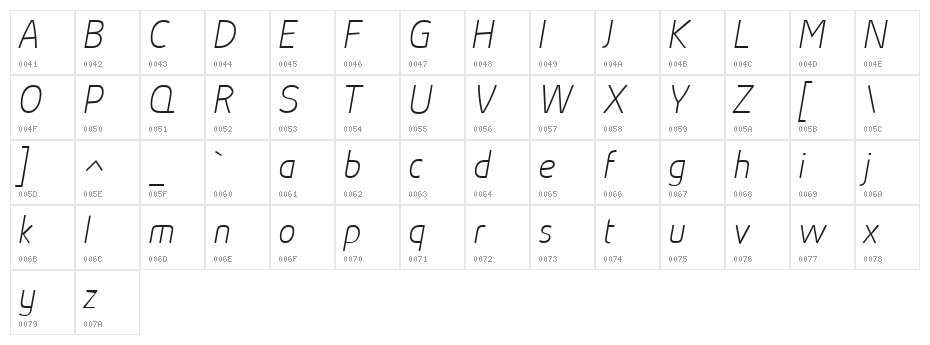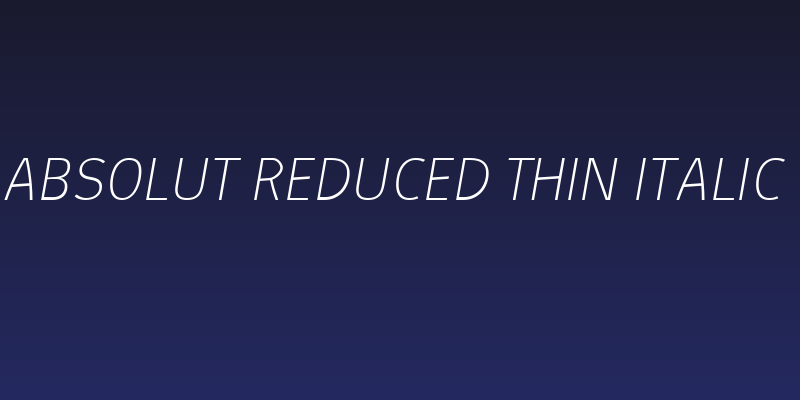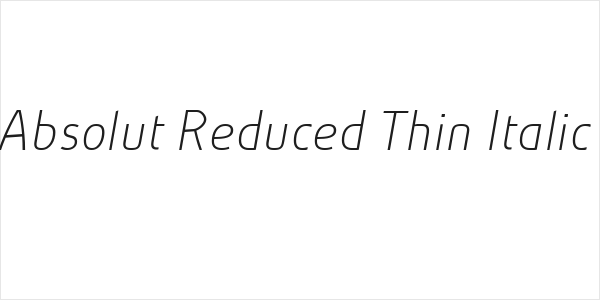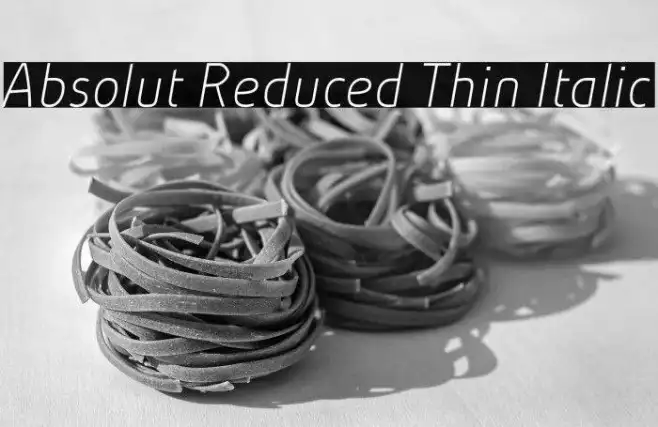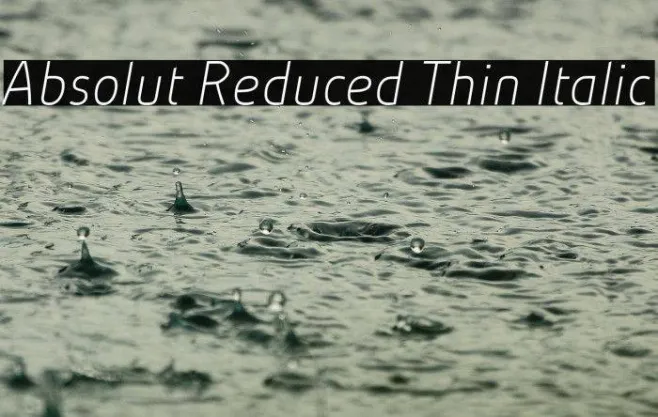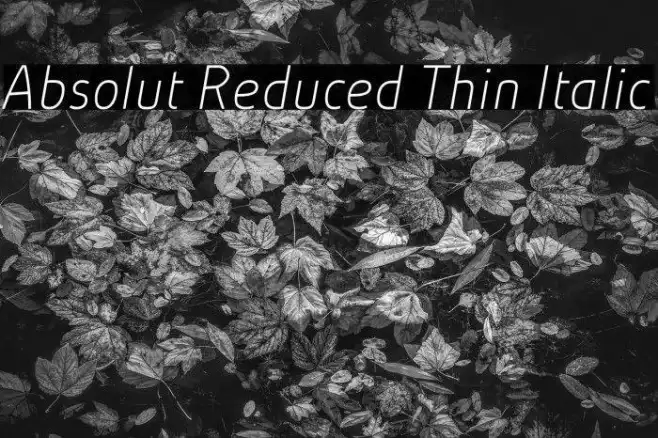
Absolut Reduced Thin Italic Font
Absolut Reduced Thin Italic Description
This font features a sleek and modern design with a thin, italicized style. The characters are elegantly elongated, giving a sense of motion and fluidity. The uppercase and lowercase letters maintain a consistent slant, enhancing the italic effect. The font's thin strokes and minimal contrast create a clean and sophisticated appearance, suitable for contemporary design projects. The spacing between characters is balanced, ensuring readability while maintaining an airy feel. This font is ideal for projects that require a touch of elegance and modernity.